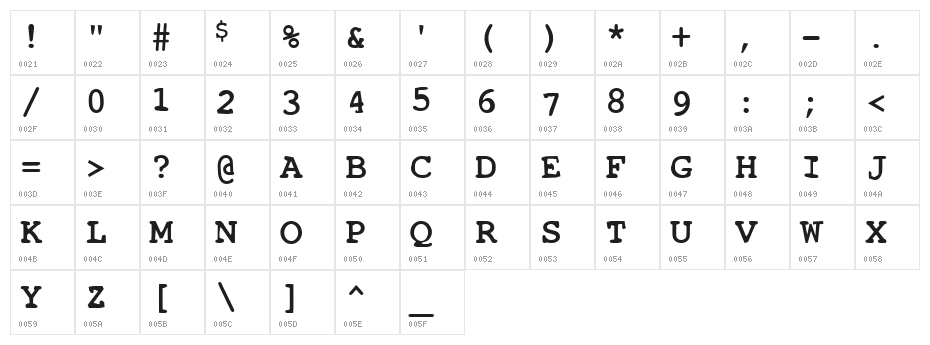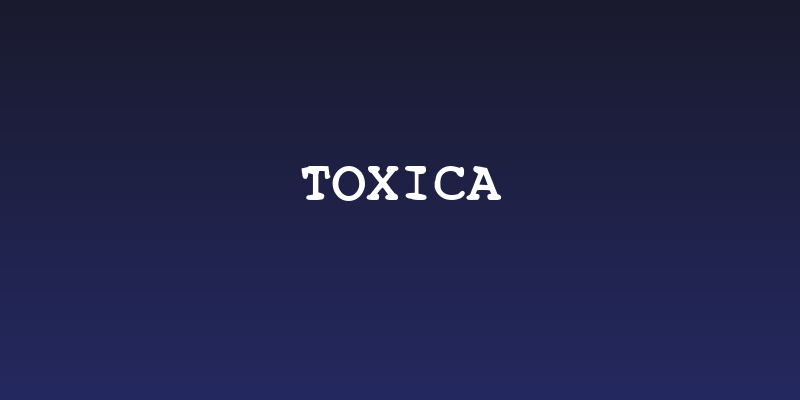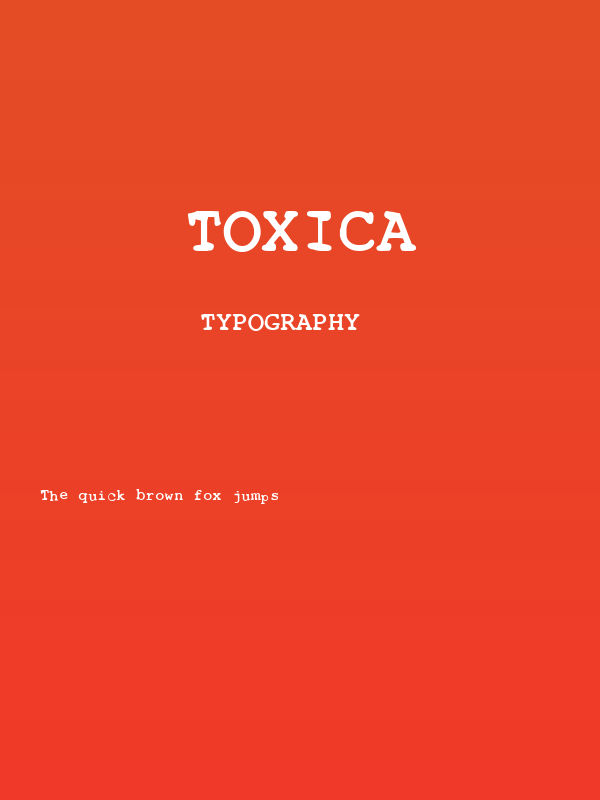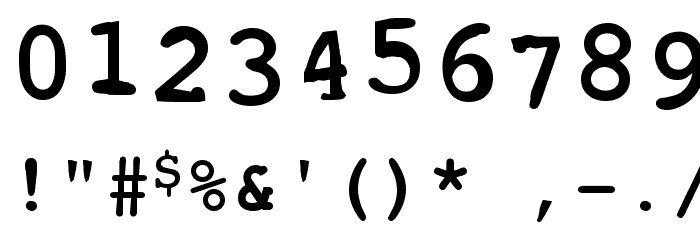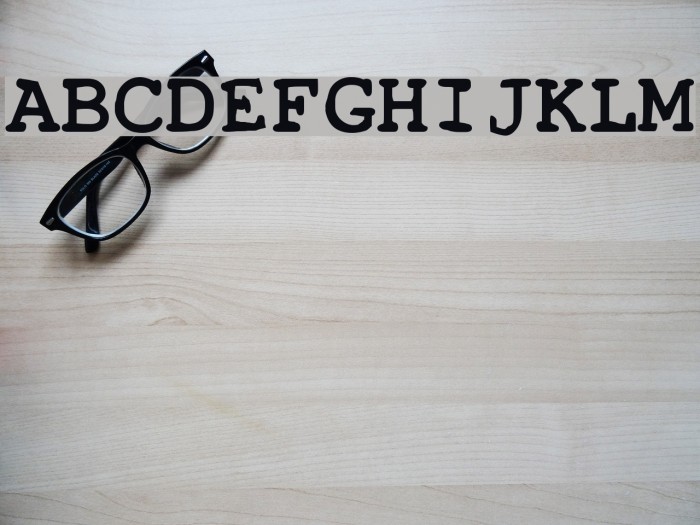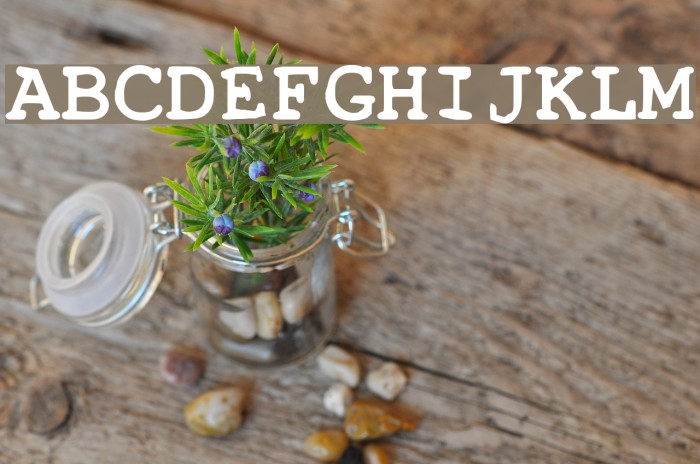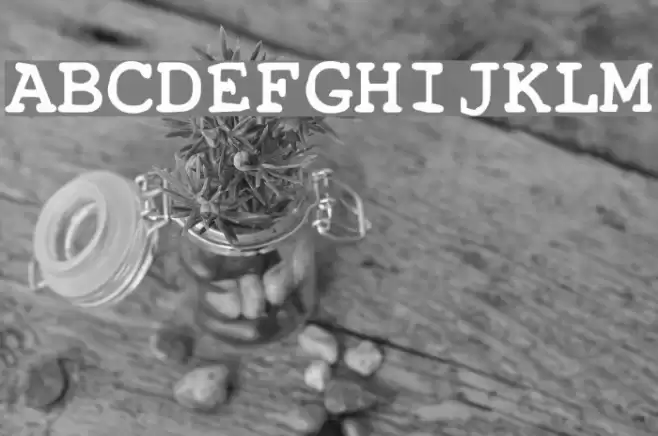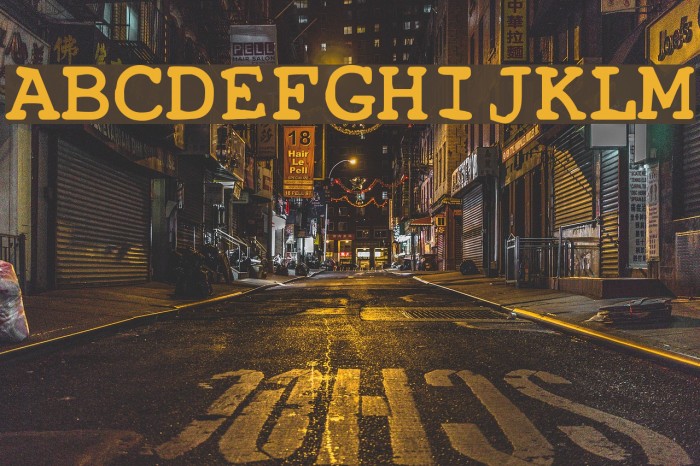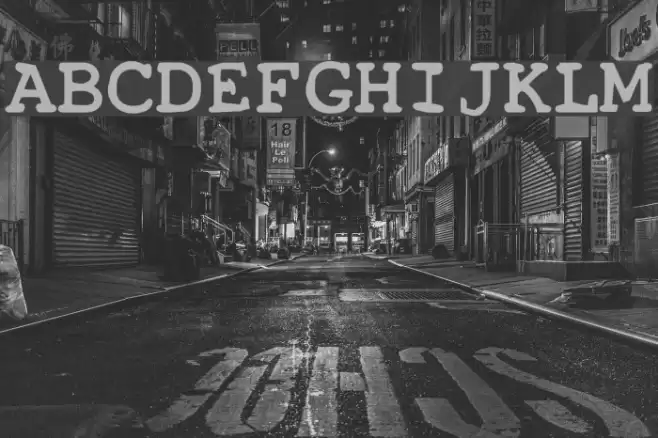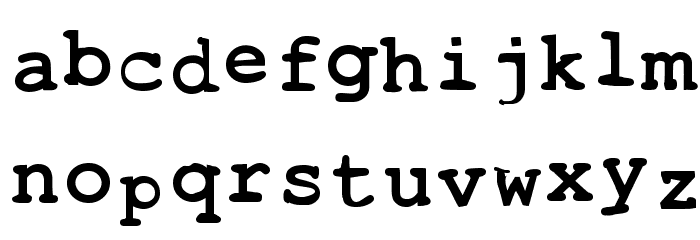
Toxica Font
Toxica Description
This font exudes a playful yet bold character with its thick, uneven strokes and slightly rough edges, reminiscent of vintage typewriter styles. The uppercase letters are prominent and assertive, while the lowercase letters maintain a consistent flow with a touch of whimsy. Numbers and special characters follow the same robust design, ensuring a cohesive look across all text elements. The font's unique charm lies in its imperfect, handcrafted appearance, making it ideal for projects that require a personal or nostalgic touch.
| Overall Style | Vintage |
| Proposed Projects | Ideal for retro-themed designs, posters, book covers, and branding that seeks a vintage or handcrafted aesthetic. |